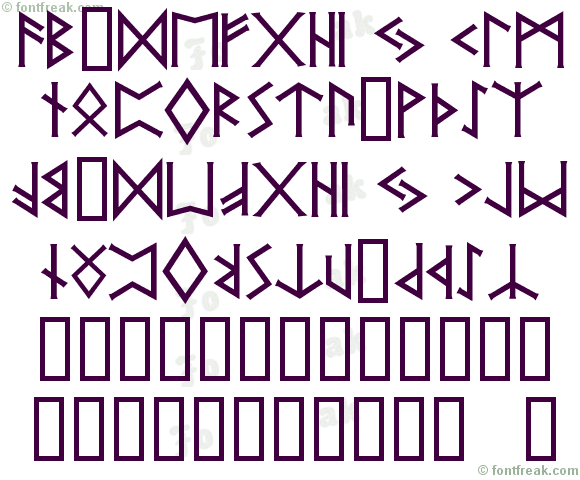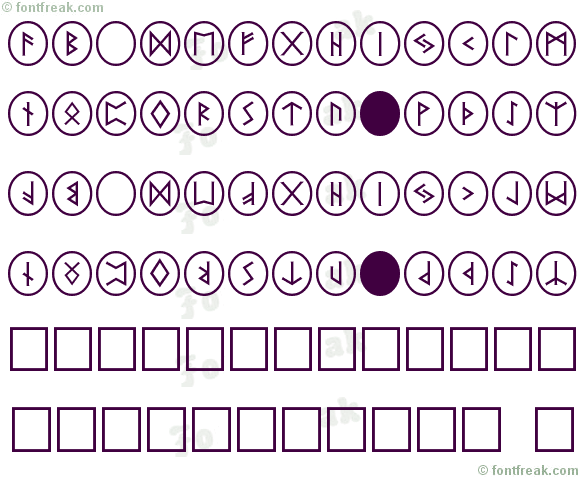
PR_Runestones_2
PR Runes 2
PR_Runestones_2, designed by Peter Rempel, is a captivating decorative font that draws inspiration from ancient runic scripts. This unique typeface features a series of stylized characters that resemble historic runes, making it an ideal choice for projects that seek to evoke a sense of mystique or connection to the past. The font exhibits a consistent stroke weight with minimal contrast, which contributes to its bold and easily readable appearance. The characters are enclosed in oval shapes, adding a distinctive flair that sets them apart from conventional typefaces.
This font is particularly suited for a variety of creative applications. It can be effectively used in fantasy-themed wedding invitations, where its runic style can add an enchanting touch. Additionally, PR_Runestones_2 works wonderfully for movie posters, especially those in the fantasy or adventure genres, helping to create an immersive visual narrative. Restaurant menus that focus on themed dining experiences can also benefit from this font, as it enhances the overall ambiance. Graphic designers and content creators looking to add a unique element to their projects will find this font to be a valuable asset.
Targeted toward graphic designers, small business owners, and anyone involved in creative endeavors, PR_Runestones_2 offers a distinctive visual language that resonates with audiences. The font is available for free download, making it accessible for various uses without the need for a hefty licensing fee.
In a world crowded with generic typefaces, PR_Runestones_2 stands out due to its originality and thematic depth. Its ability to transport viewers to another time and place, combined with its versatility, makes it a must-have for any designer’s toolkit. Experience the allure of this enchanting typeface with the PR_Runestones_2 font free download today.